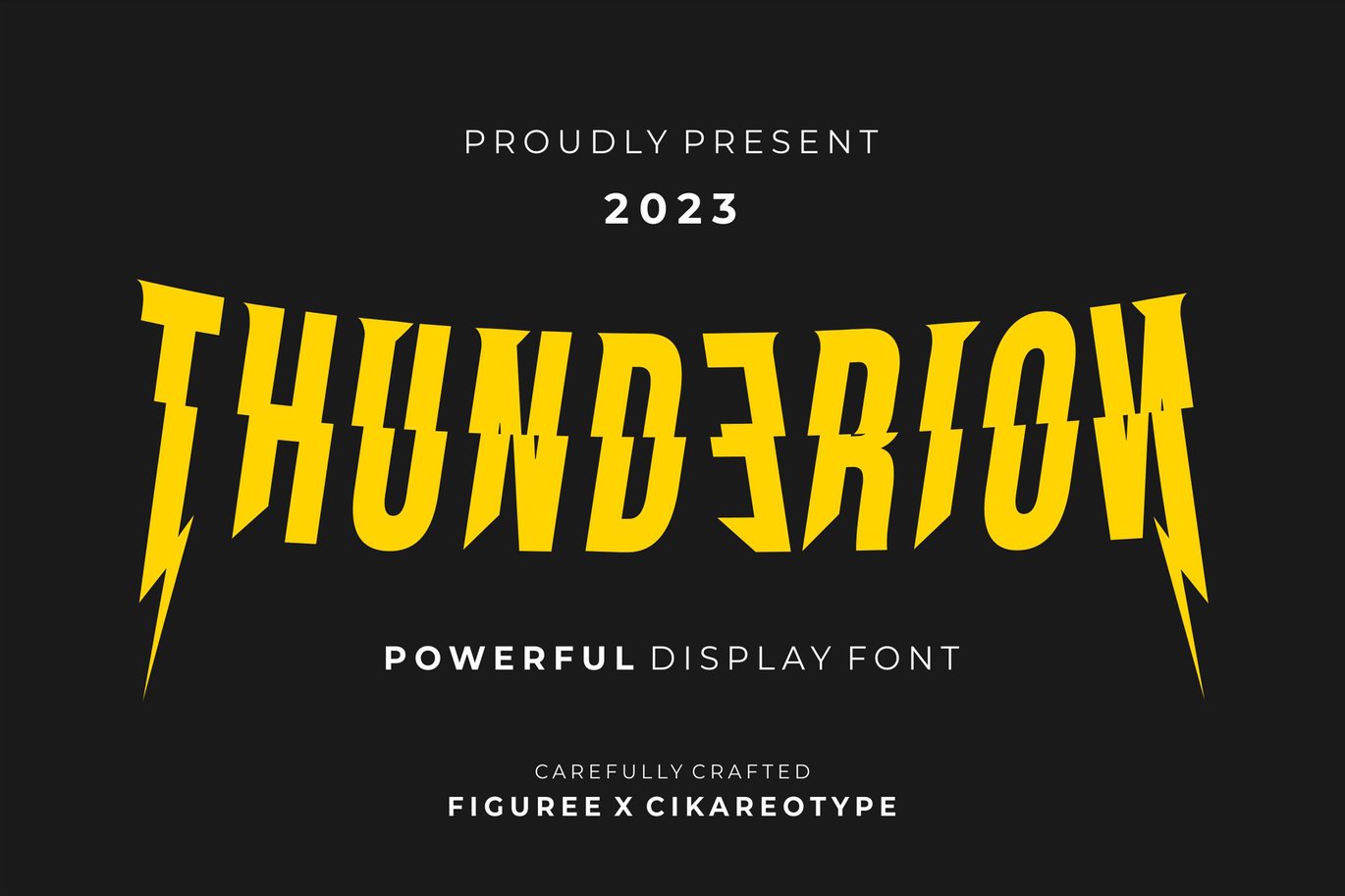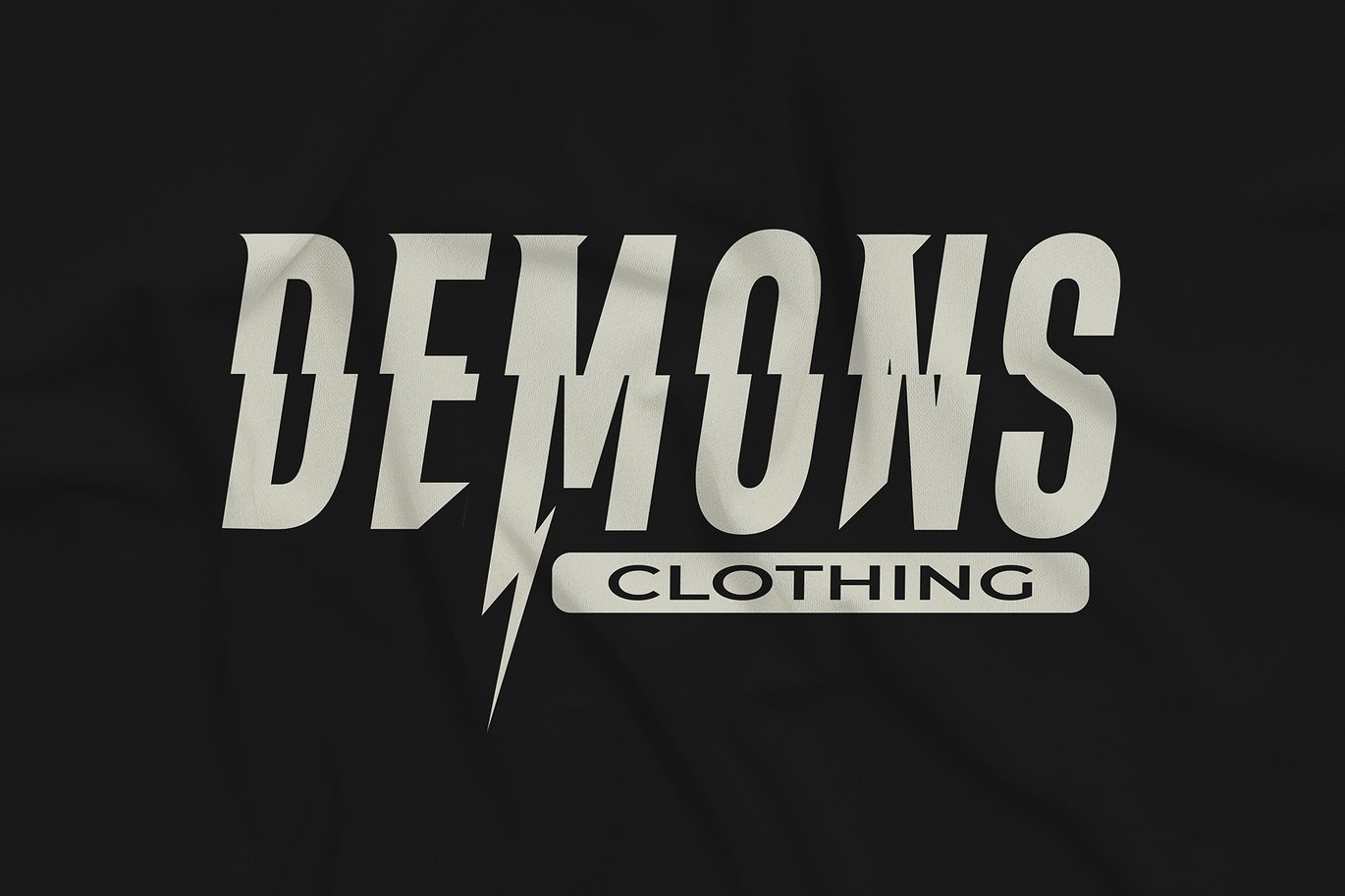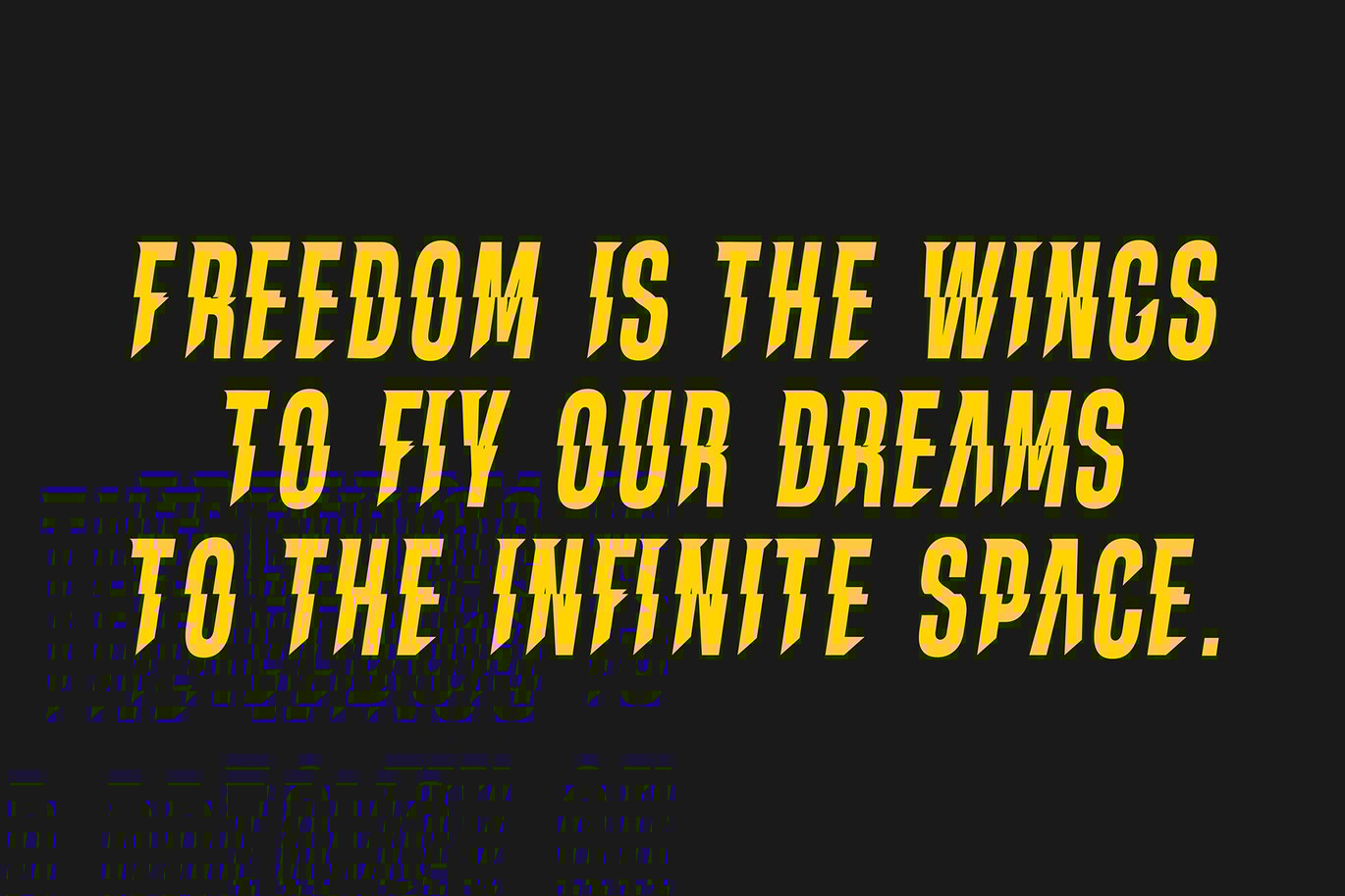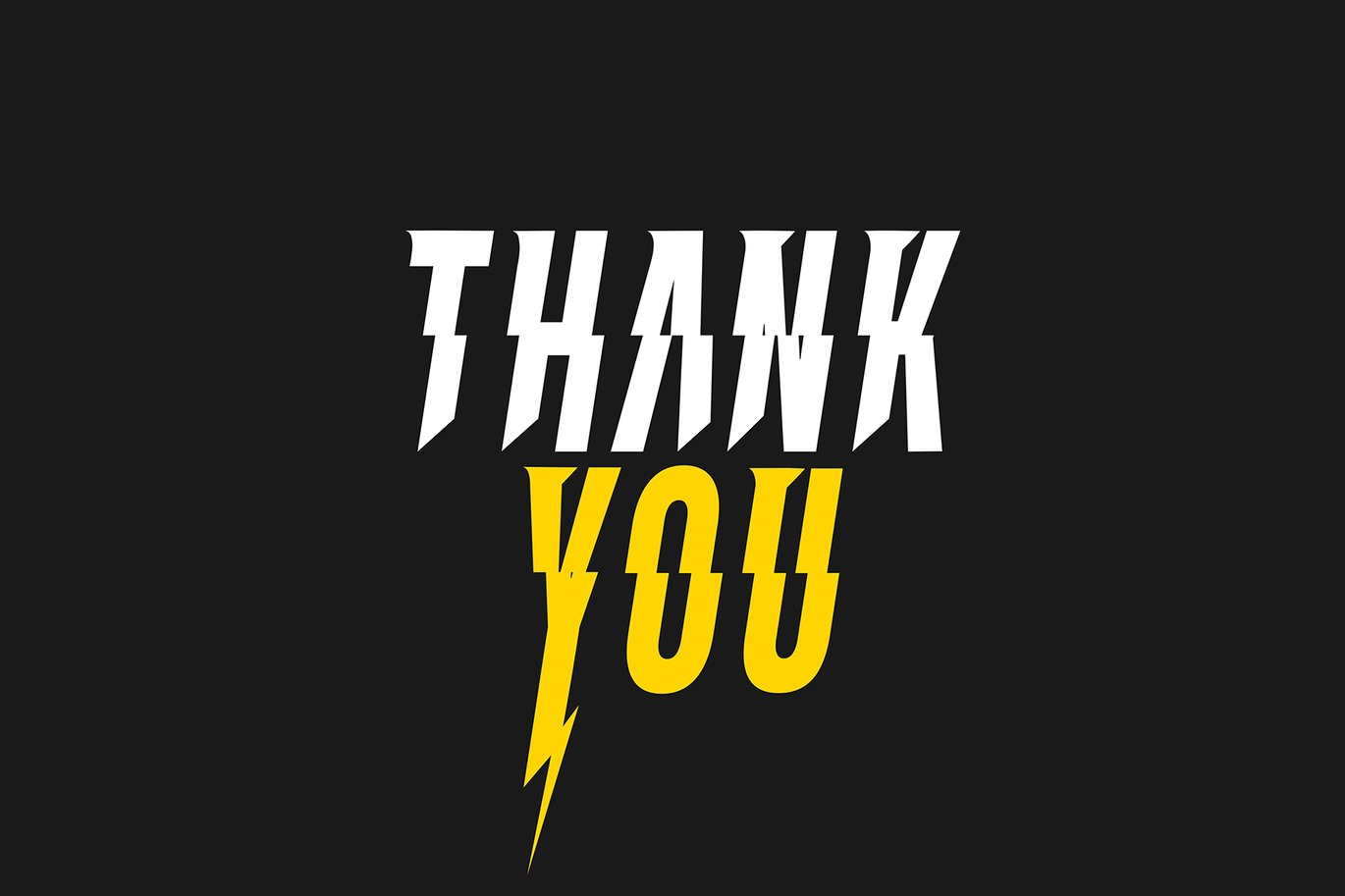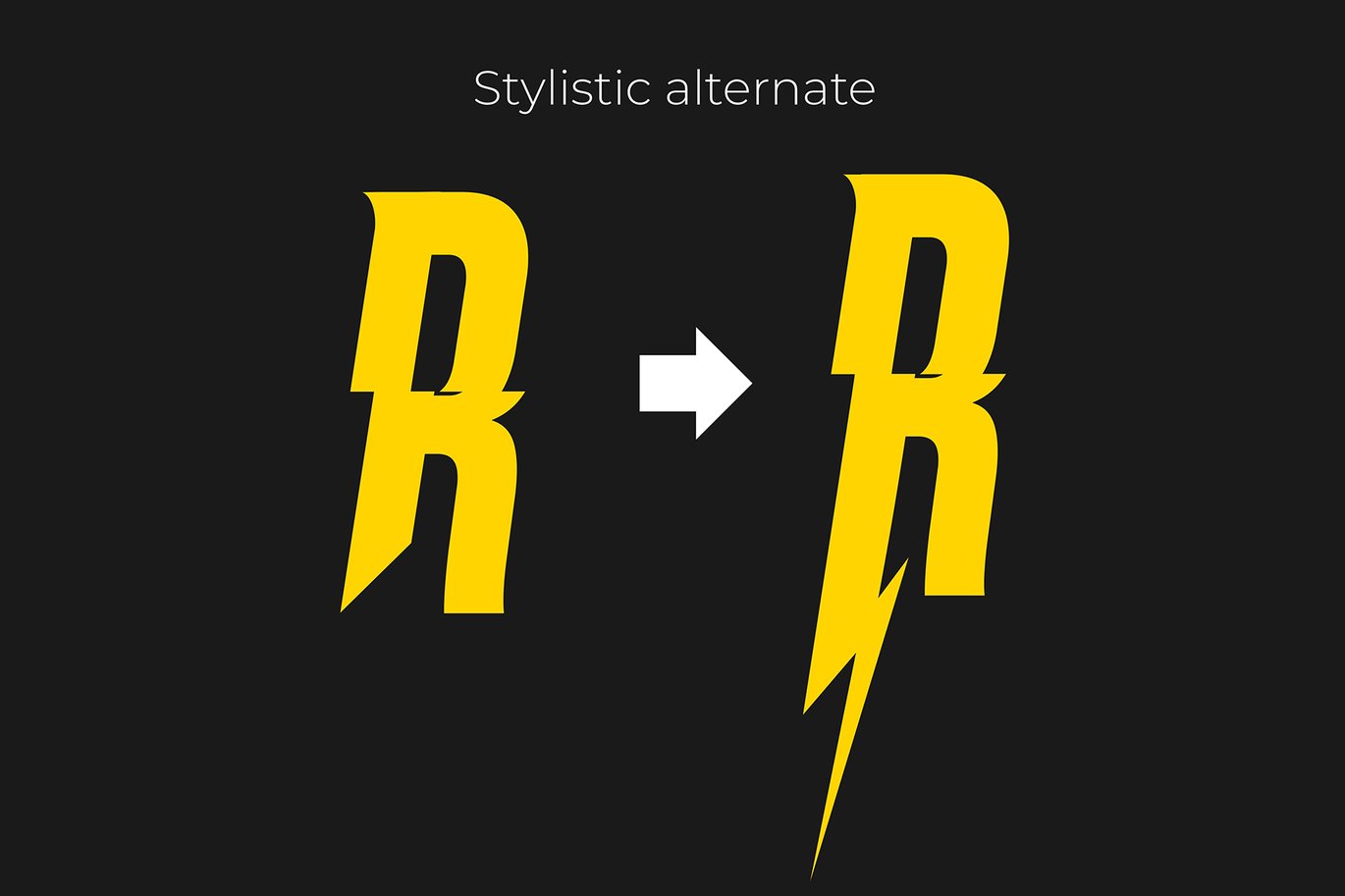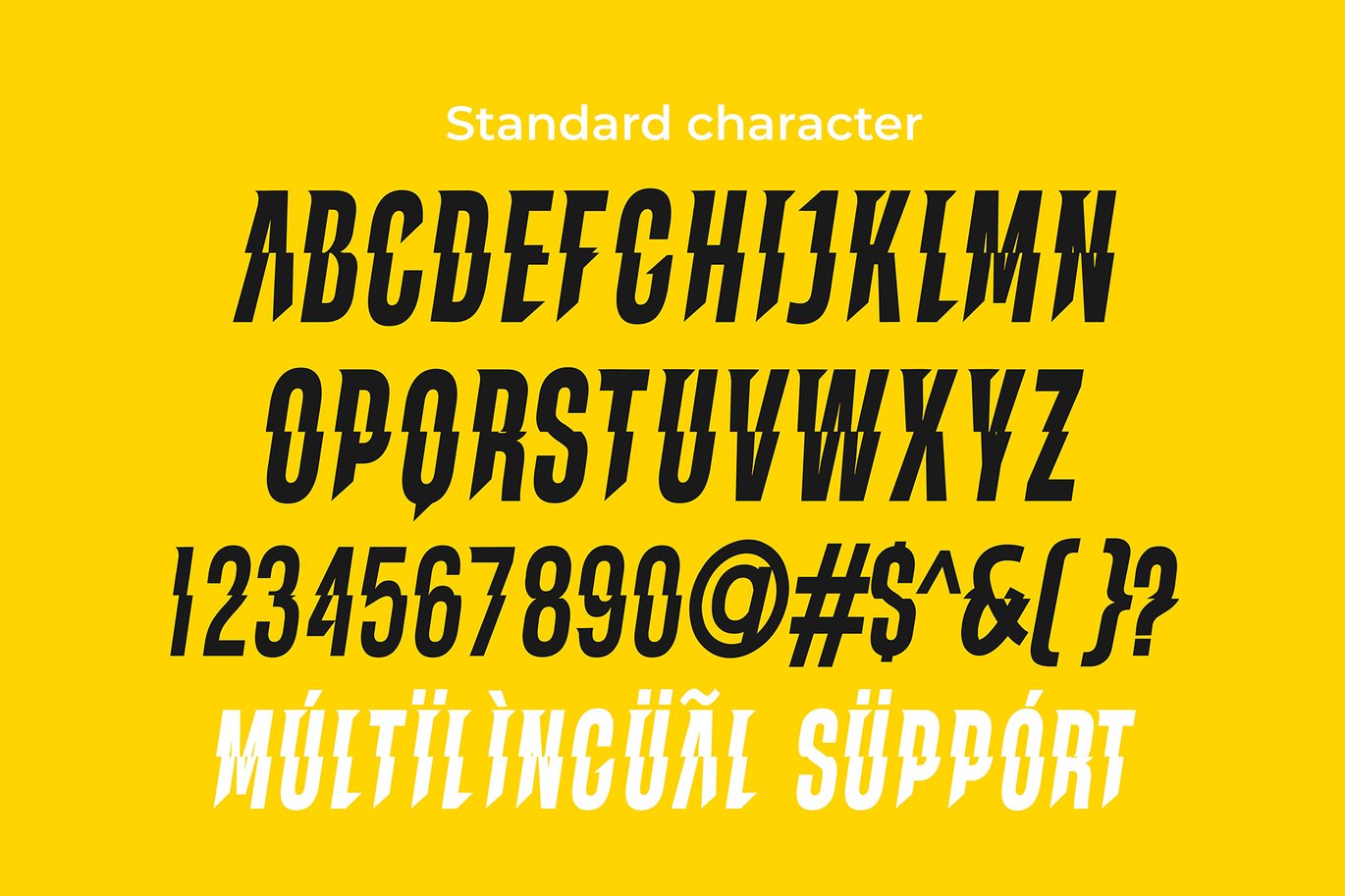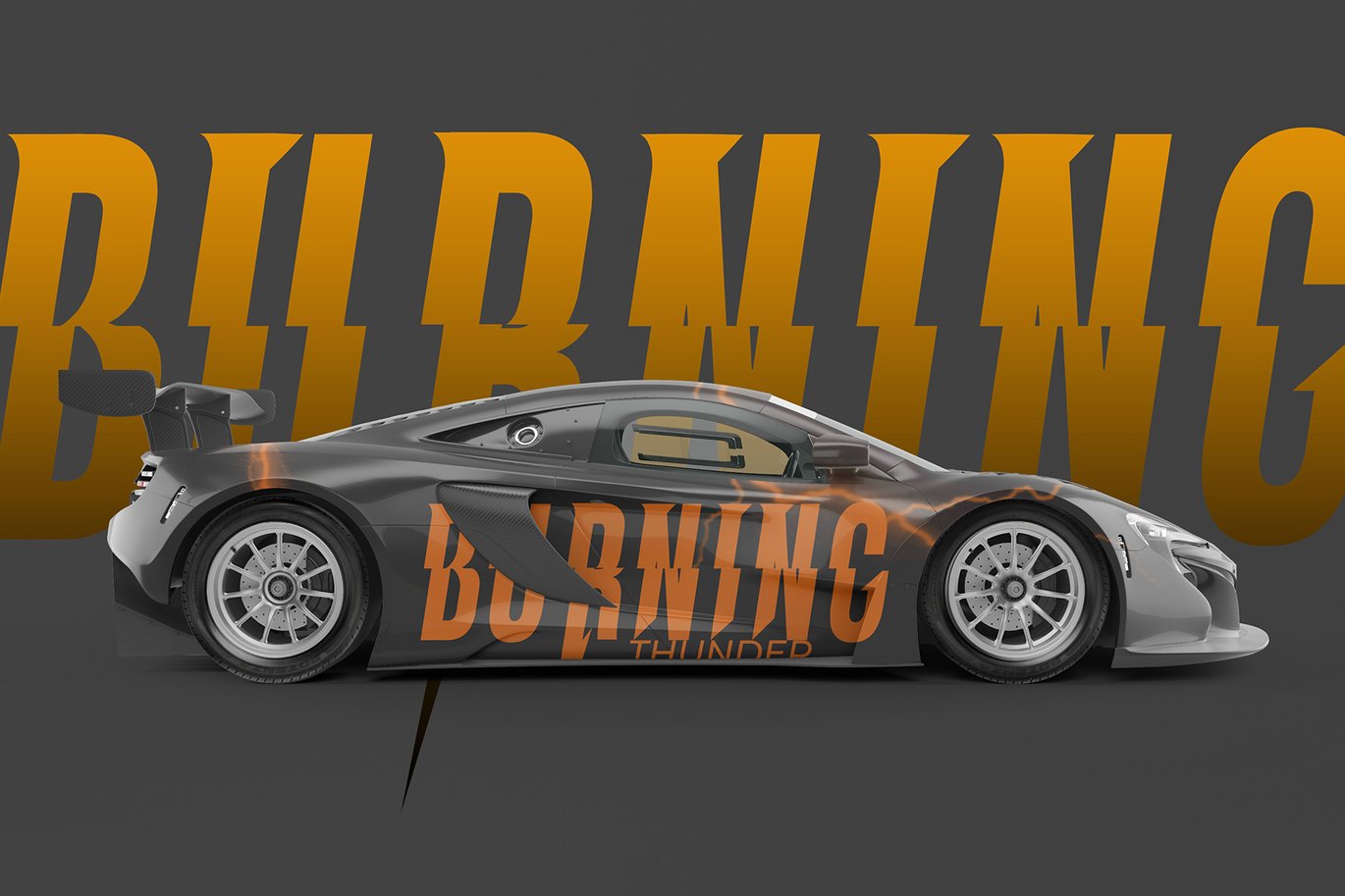
Thunderion – Powerful Display Font
Thunderion is a striking display font that captures the electrifying energy of thunderstorms. Each character in this unique typeface is adorned with a dynamic thunder accent, adding a powerful and dramatic effect to your text.
With its captivating design, Thunderion is perfect for headlines, posters, and any creative project that requires a bold and attention-grabbing aesthetic. Whether you want to emphasize a specific word or phrase, or you’re looking to make a lasting impact with your design, this font will deliver a thunderous punch.
- Stylistic set Alternates